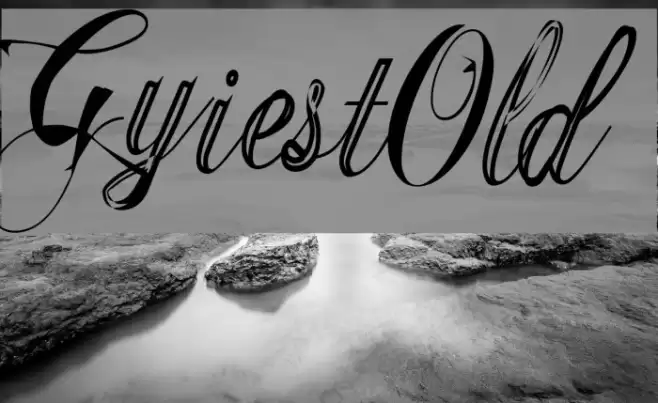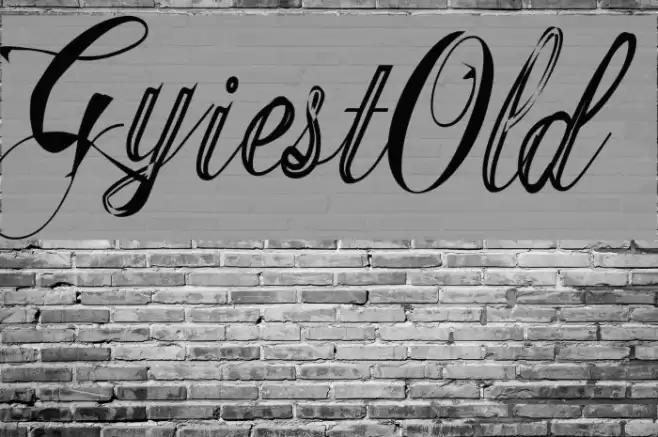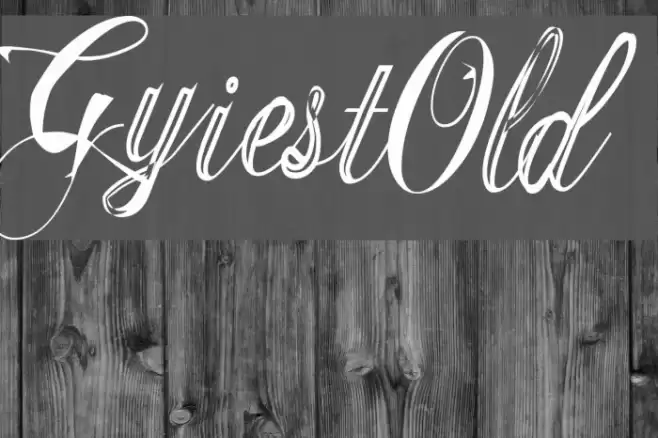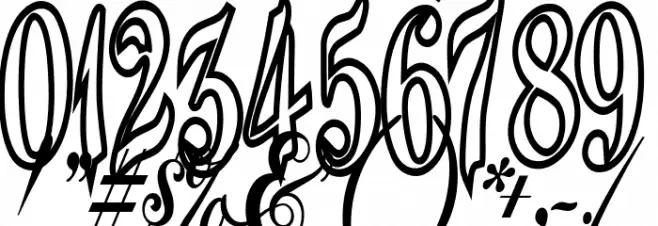
GyiestOld Font
GyiestOld Description
This font features an elegant and flowing script style, characterized by its intricate and decorative letterforms. The uppercase letters are particularly ornate, with elaborate swashes and flourishes that give a sense of sophistication and artistry. The lowercase letters maintain a consistent style, offering a harmonious blend of curves and loops. The numerals are bold and distinctive, with a playful yet refined appearance. Special characters are designed with the same attention to detail, enhancing the font's overall aesthetic. This font is ideal for projects that require a touch of elegance and creativity.
An elegant and decorative script font with intricate swashes and flourishes from Uncategorized fonts.